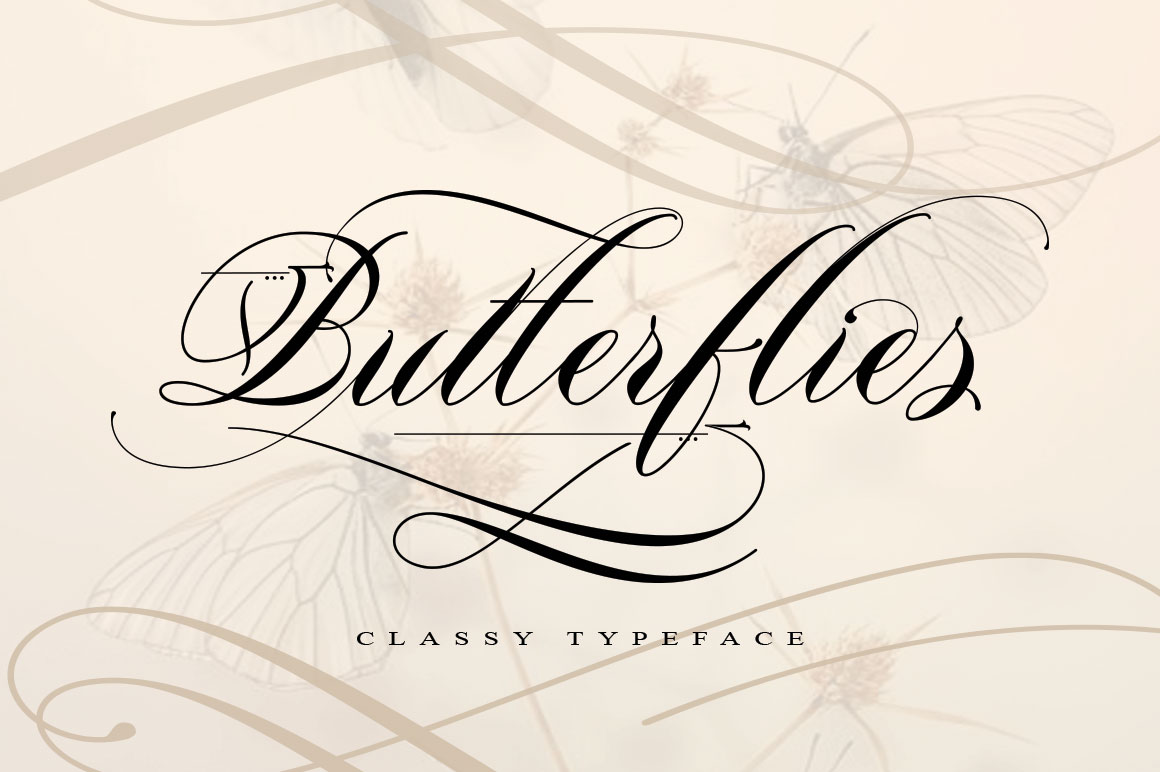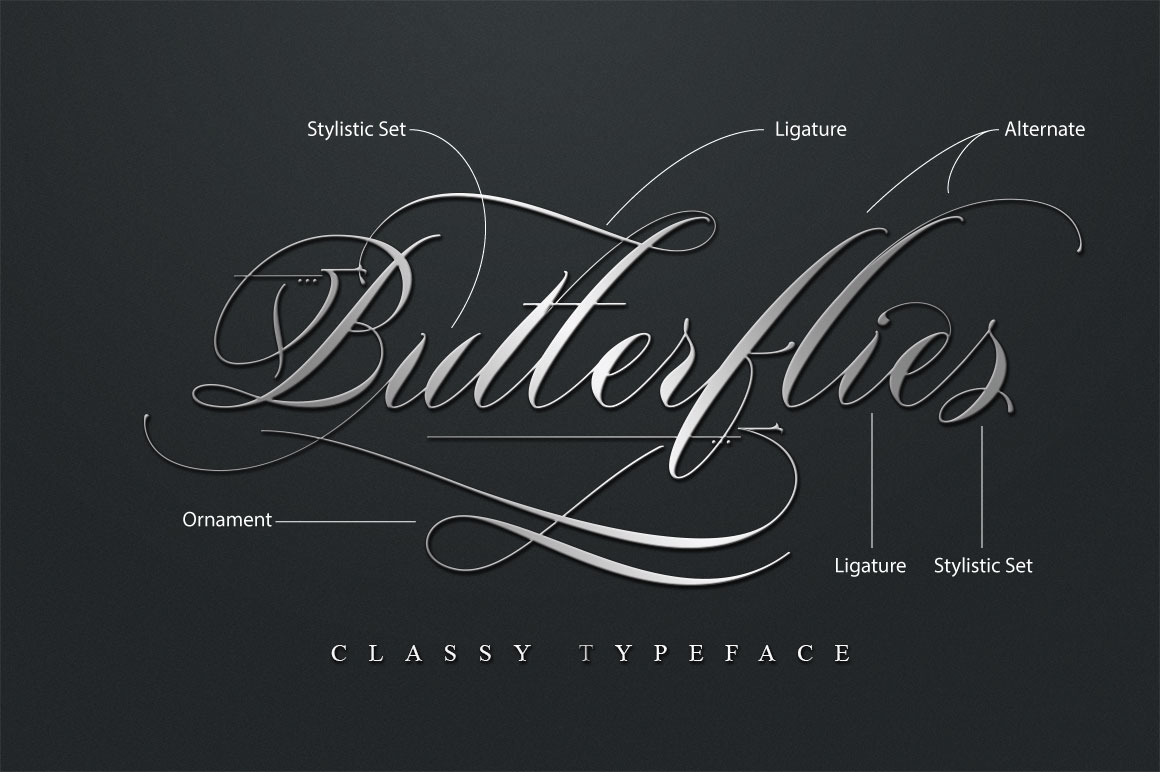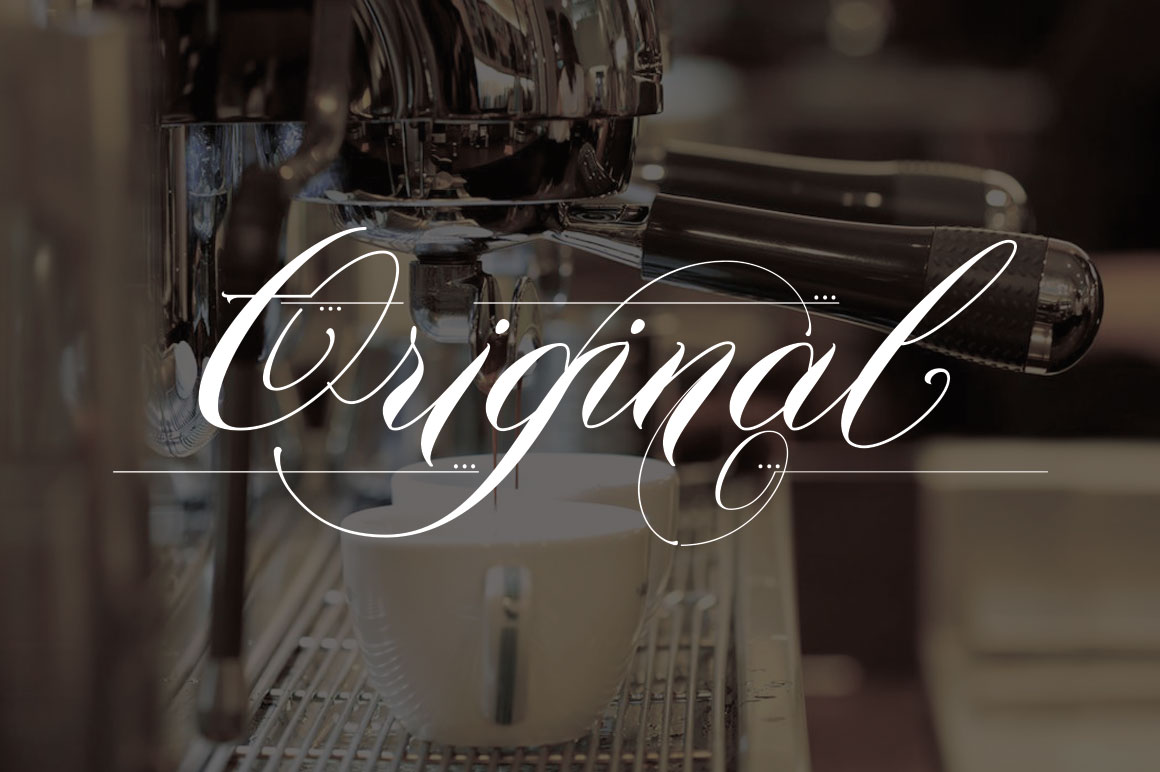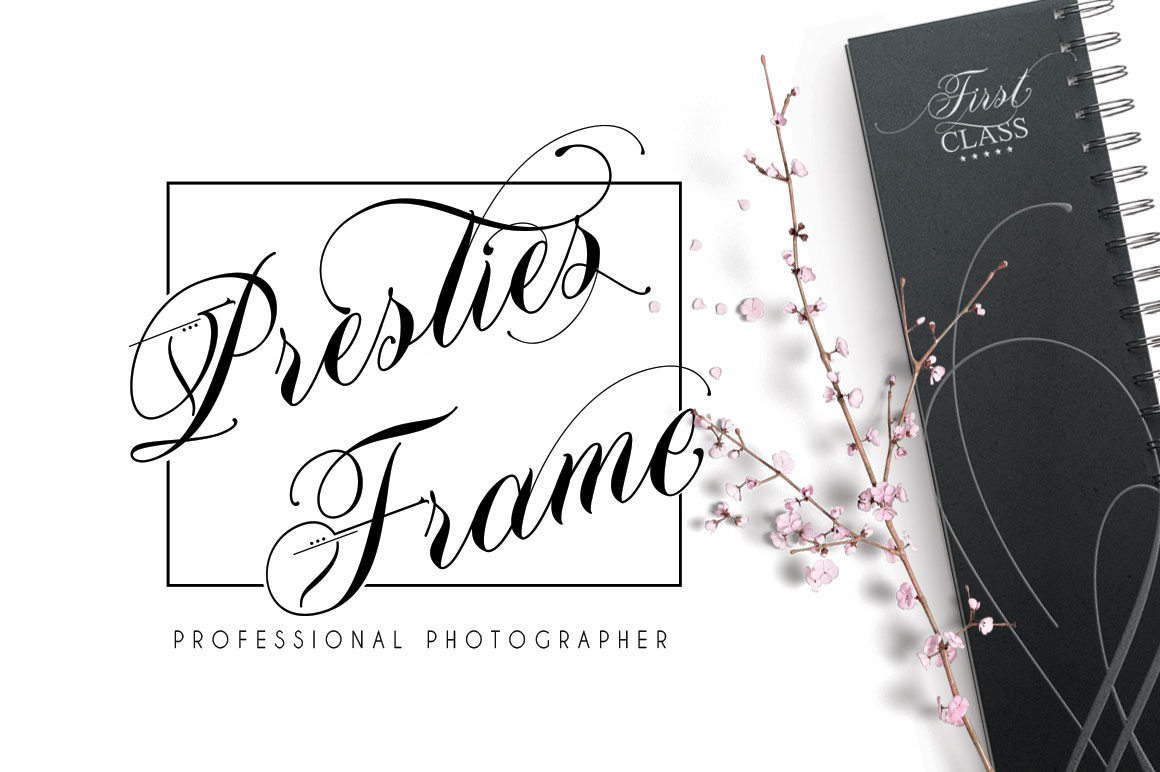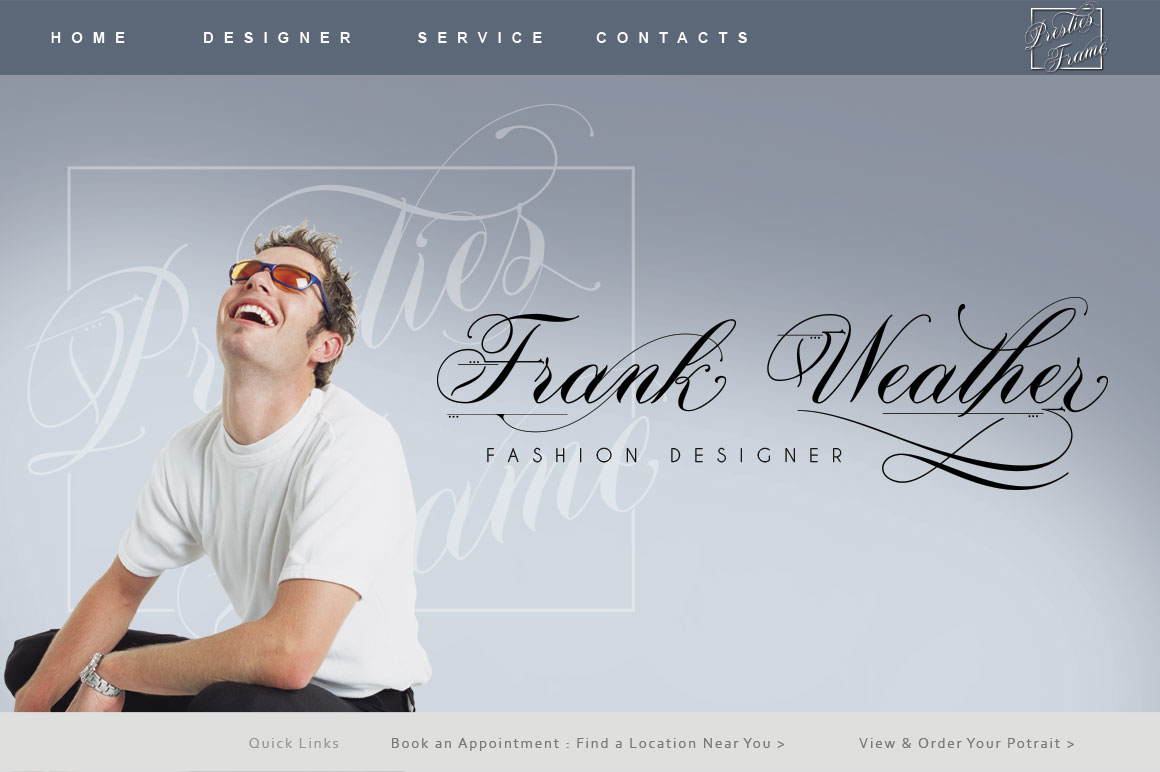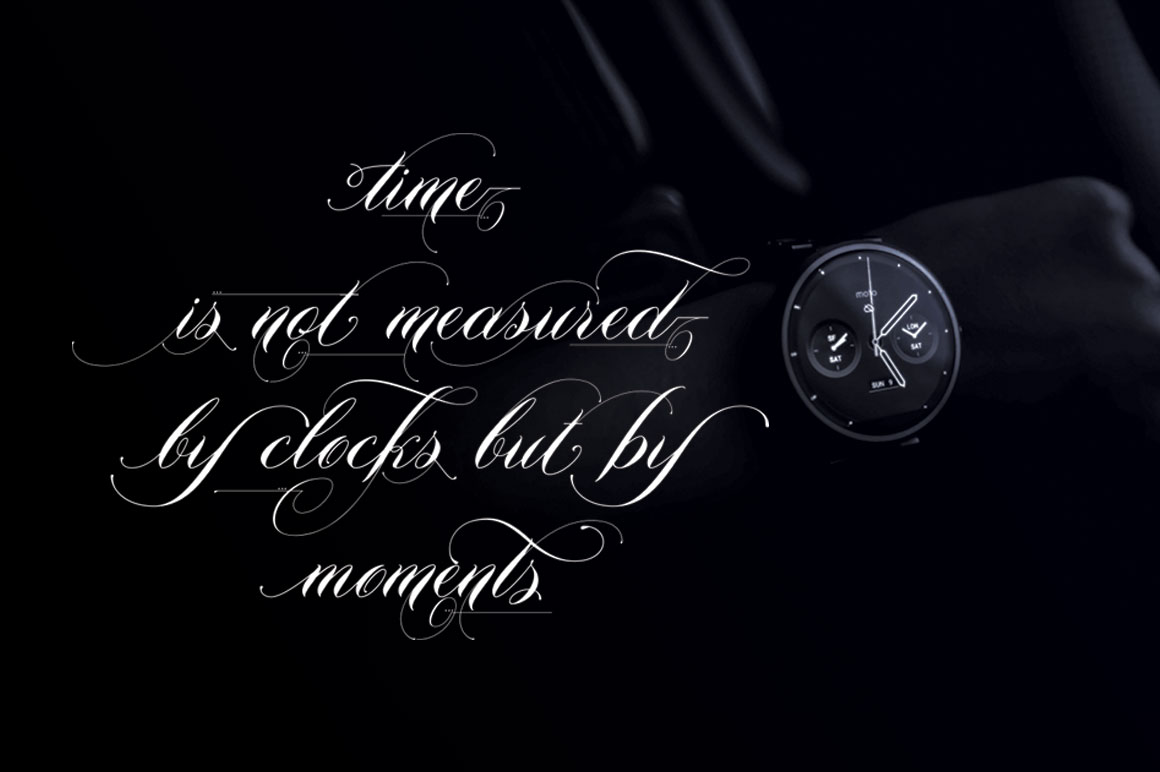
Butterflies Font
About Butterflies Font
Butterflies is a classical, elegant calligraphy font. It’s been created based on old/ancient American handwriting.
The font features careful kerning, giving your text a natural flow. You can easily add this font to your corporate and personal projects.